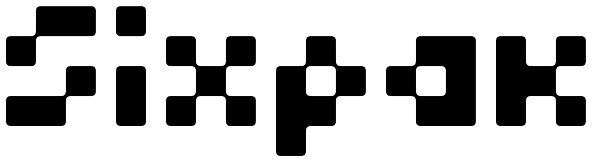
Sixpak
Sixpak is rooted in the concept of creating a font in which each individual character is composed of no more than six squares with rounded corners, to resemble enlarged pixels.